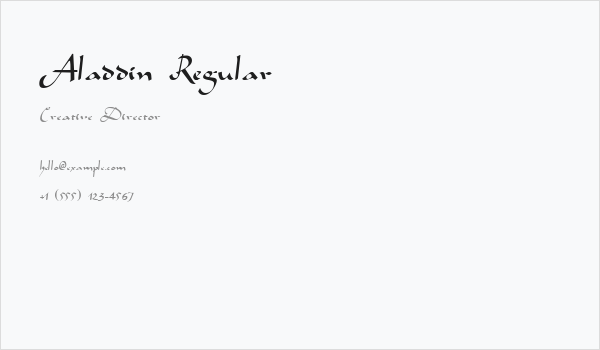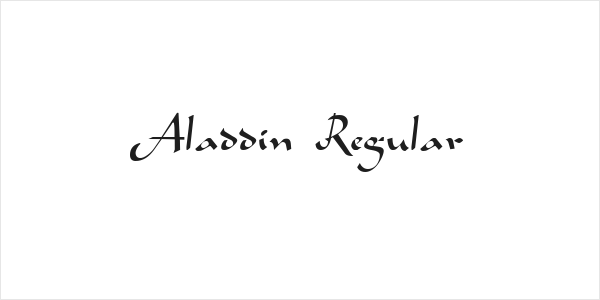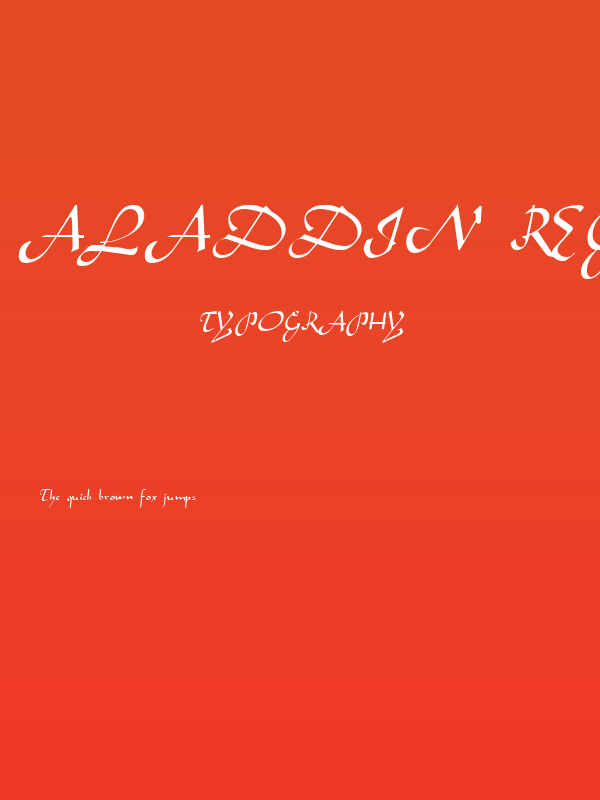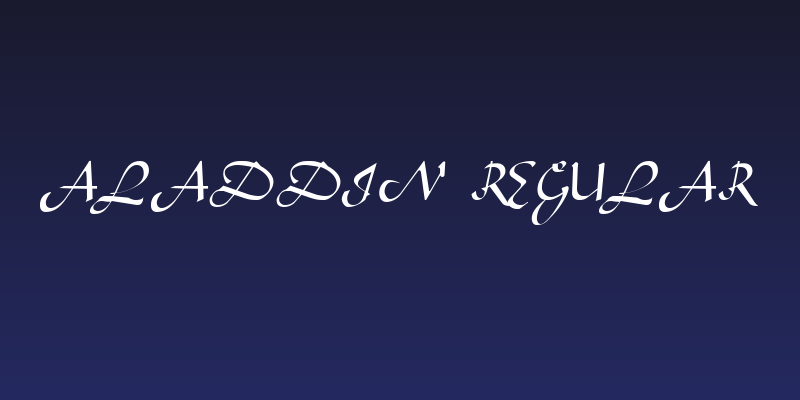
Aladdin Regular Font
Aladdin Regular Description
This font features a whimsical and flowing script style, reminiscent of calligraphy with a touch of fantasy. The uppercase letters are elegantly curved with distinctive flourishes, while the lowercase letters maintain a consistent, smooth flow. The numbers are uniquely styled, adding to the font's overall charm. Special characters are creatively designed, enhancing the font's decorative appeal. The strokes vary in thickness, providing a dynamic and engaging visual experience. This font is perfect for projects that require a touch of magic and elegance.
ContrastHigh
Overall StyleDecorative
Use CaseLogos, Headlines, Invitations
Proposed ProjectsIdeal for fantasy-themed designs, invitations, greeting cards, and decorative posters.